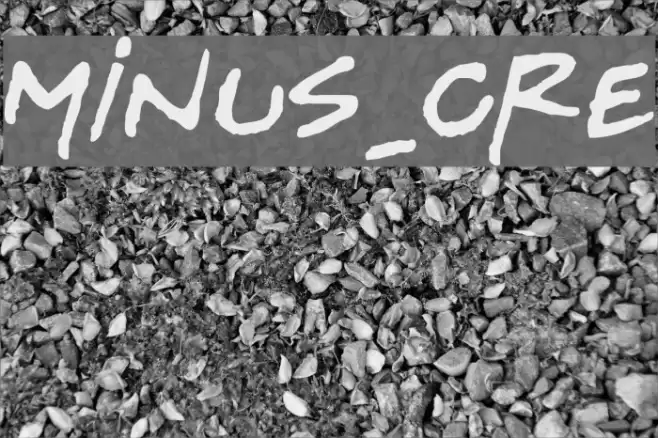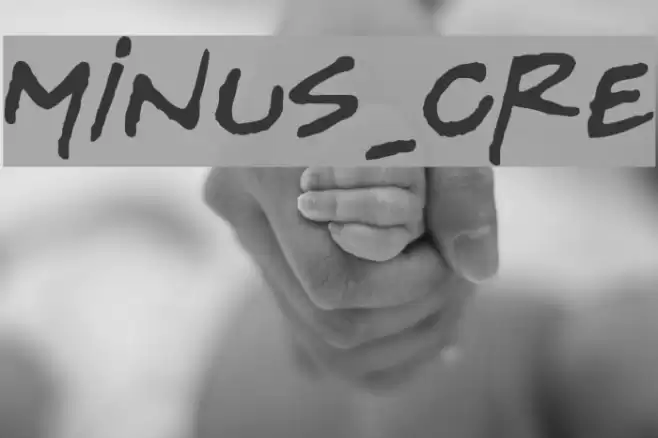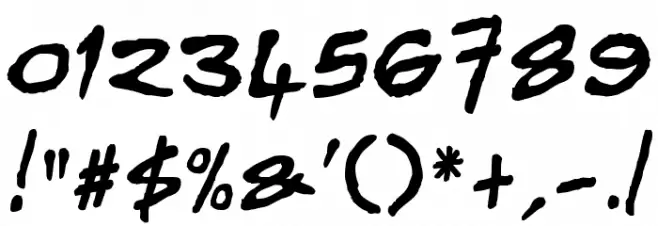
MINUS_CRE Font
MINUS_CRE Description
This font exhibits a dynamic and energetic handwritten style, characterized by its bold and slightly irregular strokes. The letters have a casual, informal appearance, with a slight slant that adds to the sense of movement and spontaneity. The uppercase and lowercase letters are well-balanced, maintaining a consistent flow throughout the alphabet. The numbers and special characters complement the overall style, ensuring versatility across different uses. The font's unique personality makes it suitable for projects that require a personal touch or a creative flair.
A bold, handwritten font with dynamic and energetic strokes from Uncategorized fonts.
- Proposed Projects: Ideal for greeting cards, invitations, personal branding, and creative posters.
- Overall Style: Casual, Energetic
- Use Case: Logos, Headlines, Creative projects